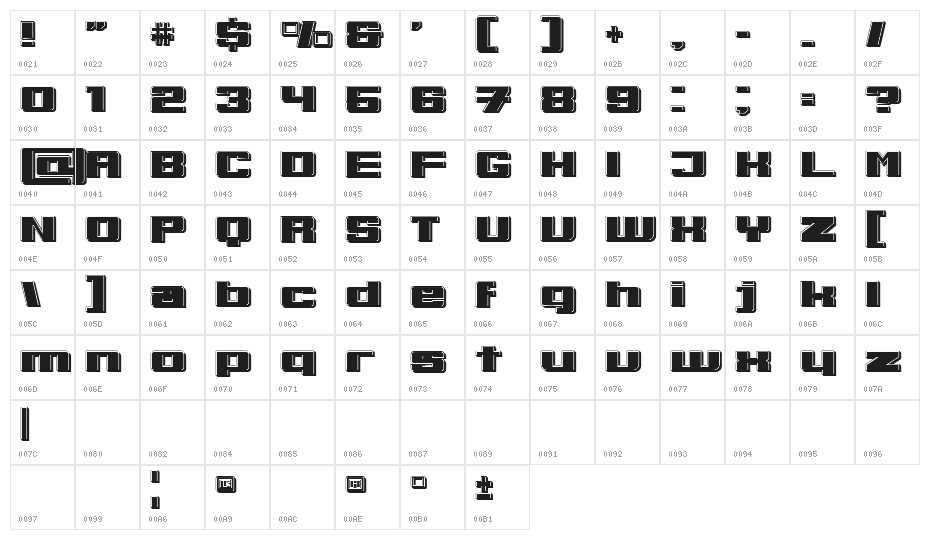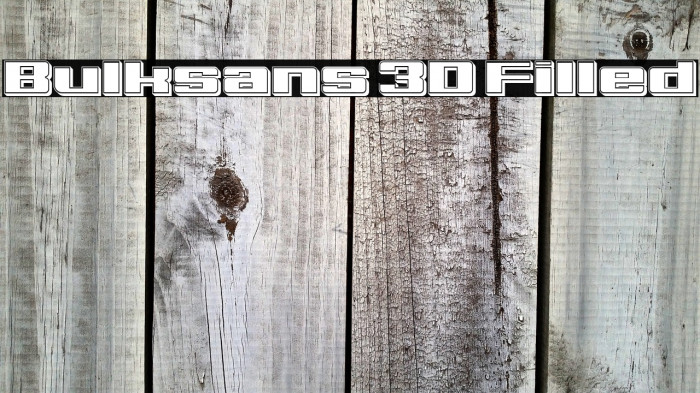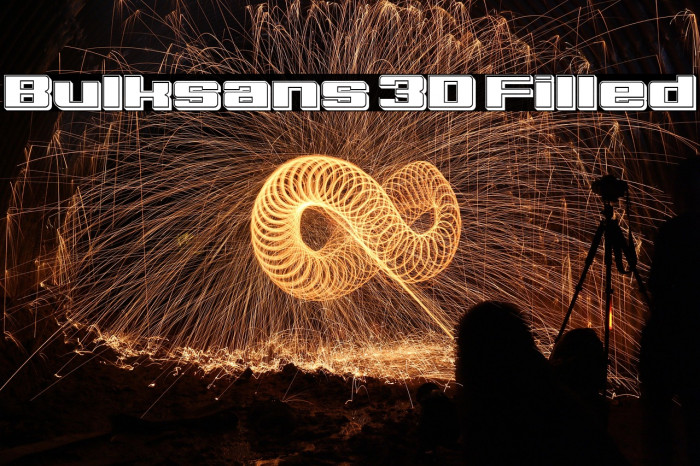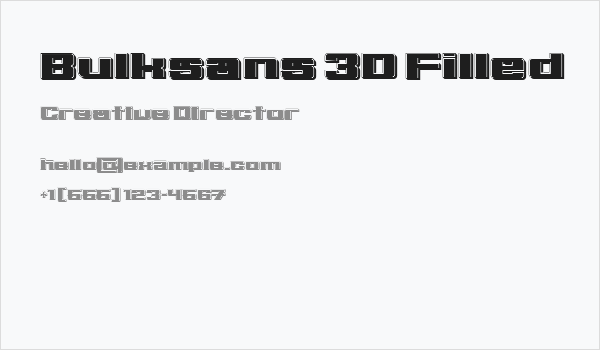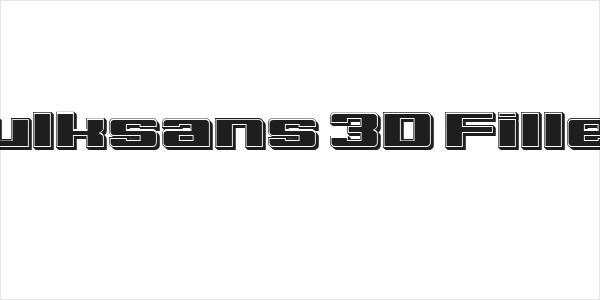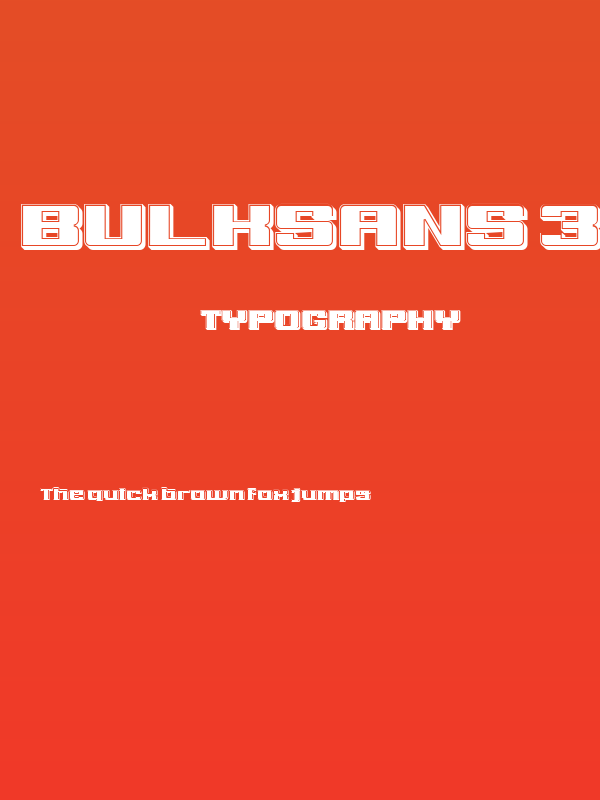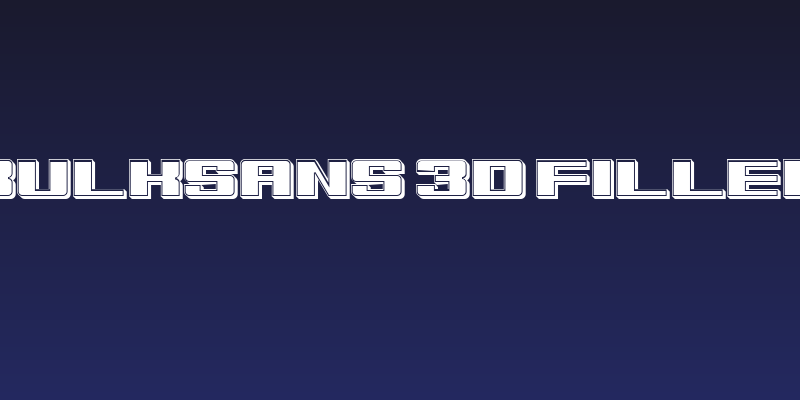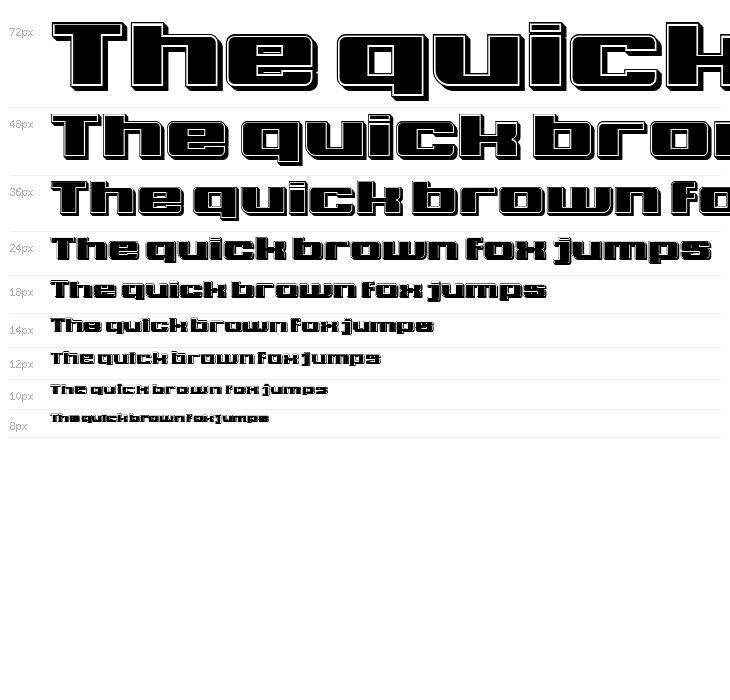
Bulksans 3D Filled Font
Bulksans 3D Filled Description
This font features a bold, three-dimensional appearance with filled characters that create a strong visual impact. The letters are blocky and geometric, with a consistent thickness throughout, giving them a modern and industrial feel. The 3D effect is achieved through a shadow-like outline that adds depth and dimension. The uppercase and lowercase letters maintain a uniform style, while the numbers and special characters are designed to complement the overall aesthetic. This font is ideal for projects that require a bold and eye-catching display, such as posters, headlines, or branding materials.
| Proposed Projects | Ideal for posters, headlines, branding, and any project needing a strong visual impact. |